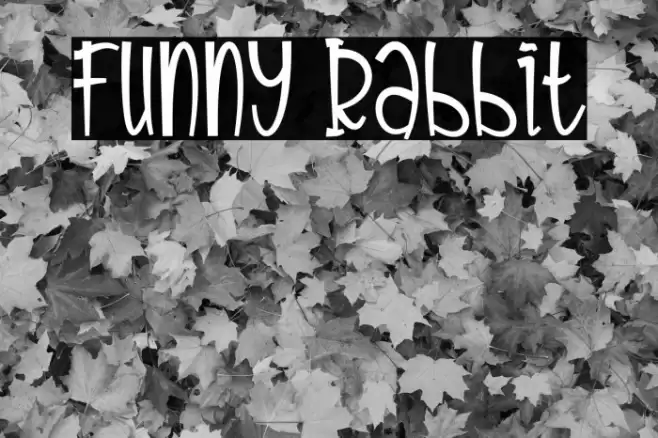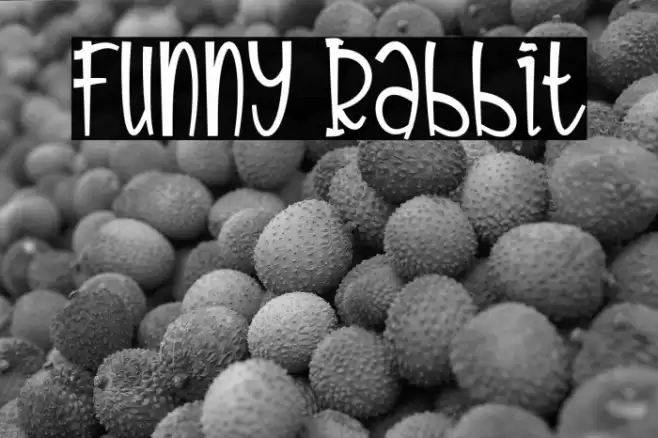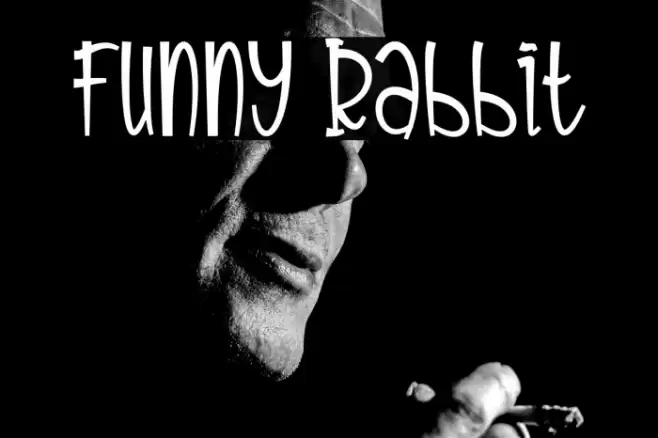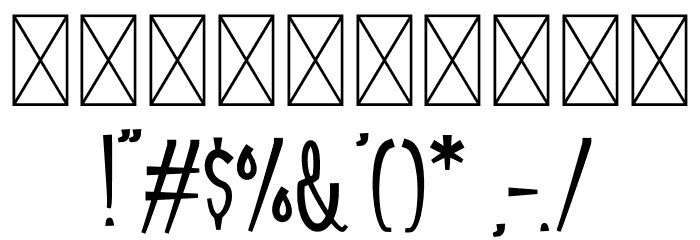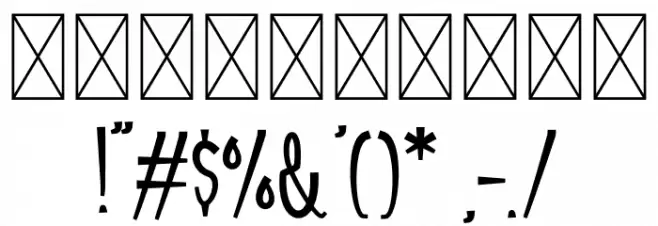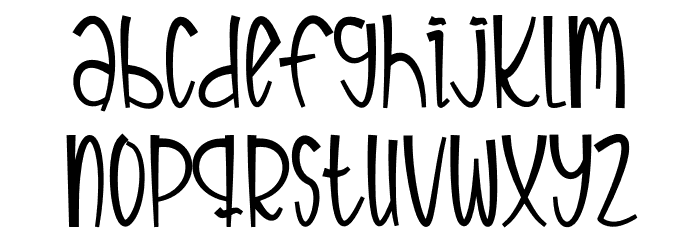
Funny Rabbit Font
Funny Rabbit Description
This playful and whimsical font features a unique blend of curvy and angular elements, creating a lively and energetic appearance. The uppercase letters are tall and slightly narrow, with exaggerated curves and playful loops, giving them a sense of motion and fun. The lowercase letters maintain this playful style, with consistent stroke widths and a slightly condensed form. The numbers and special characters follow the same design principles, ensuring a cohesive look throughout. This font's distinctive style makes it ideal for projects that require a touch of humor and creativity.
A playful and whimsical font with curvy, energetic characters from Cartoon fonts.
- Proposed Projects: Ideal for children's books, playful branding, greeting cards, and creative posters.
- Width: Condensed
- Overall Style: Playful